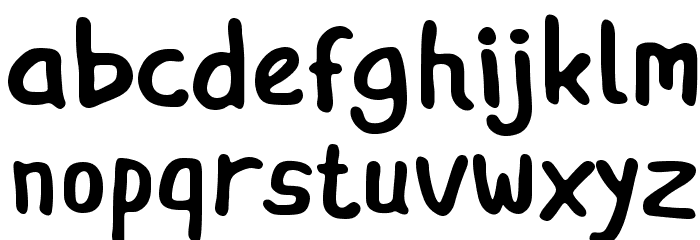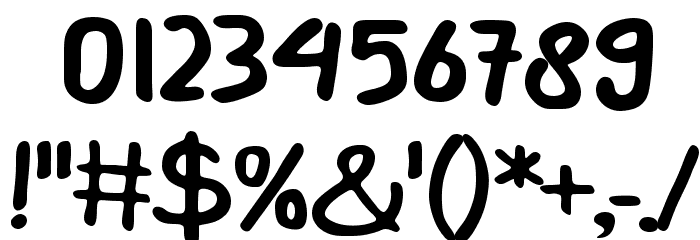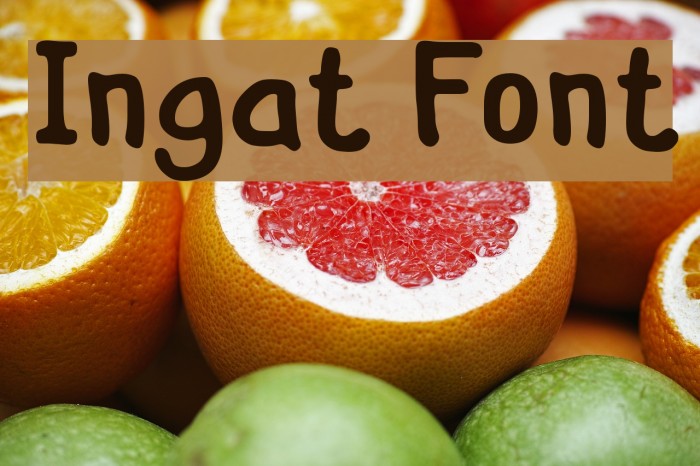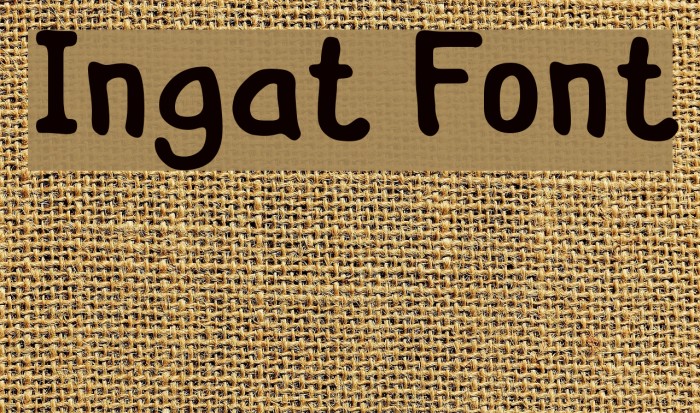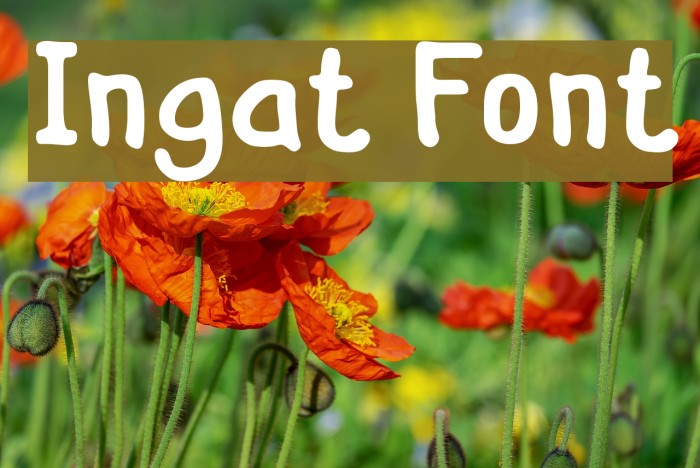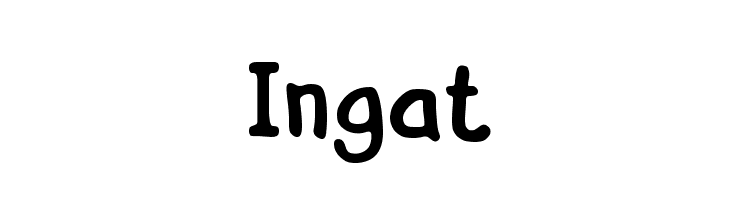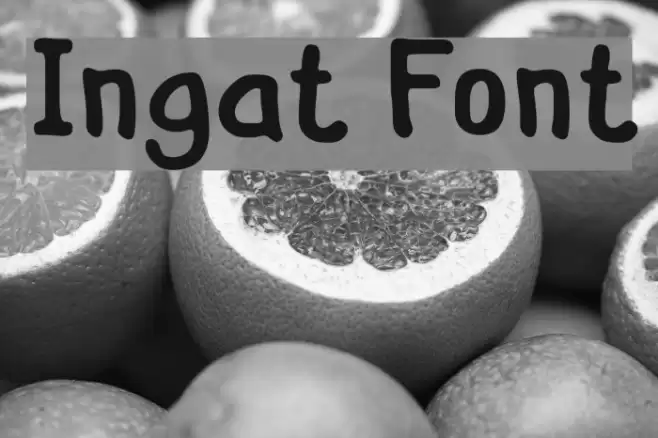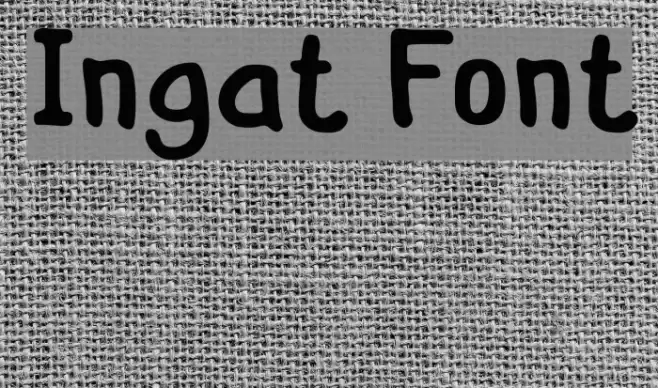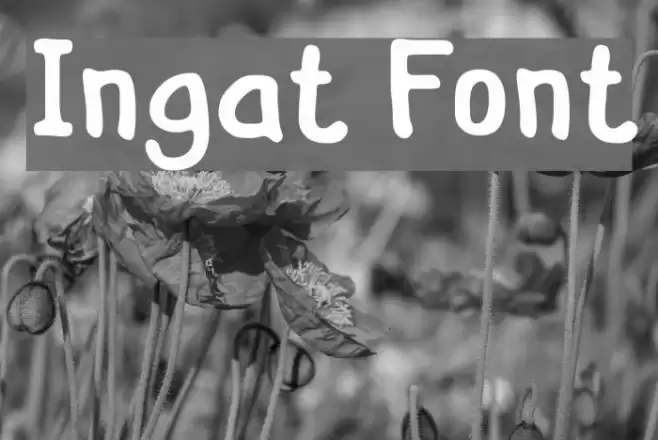
Ingat
This playful and rounded font features a hand-drawn style with smooth curves and a friendly appearance. The characters are bold and slightly irregular, giving it a casual and approachable feel. The uppercase and lowercase letters maintain consistent proportions, while the numerals and special characters complement the overall style. The font's design is reminiscent of handwriting, making it suitable for informal and creative projects. Its unique charm and readability make it versatile for various applications.
A playful, hand-drawn font with rounded, smooth curves and a friendly appearance.
- Proposed Projects: Ideal for children's books, greeting cards, posters, and playful branding projects.
- Overall Style: Casual
- Use Case: Headlines, Logos, Informal Text